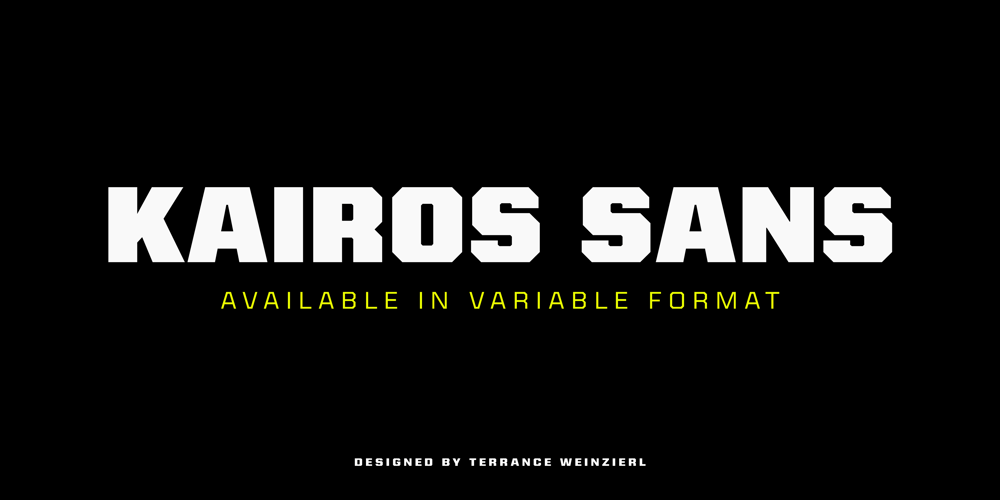
Kairos Sans
Kairos Sans font
Kairos Sans Font Family was designed by Terrance Weinzierl and published by Monotype. Kairos Sans contains 52 styles and family package options. Kairos Sans, designed by Terrance Weinzierl, is an octagonal sans serif influenced by 19th Century Grecians, with the weights and widths of a contemporary palette. The bold simplicity radiates in headlines and sub-heads, with suitable performance in text. Of course, it pairs perfectly with the slab serif companion, Kairos. Kairos Sans is available in 48 styles; 8 weights in 3 widths, all with matching italics. Condensed, Regular and Extended widths range from Thin to Black. There are 4 Rough styles as well, bringing the whole family to a total of 52 styles. It comes in Latin, Greek and Cyrillic scripts. It also comes with some extras and OpenType features: Small capitals, proportional and tabular figures, superscript and subscript figures, support for fractions, ornaments, arrows and Stylistic Alternates. It often looks athletic, industrial, and stern. Kairos Sans is stout, but has energy.